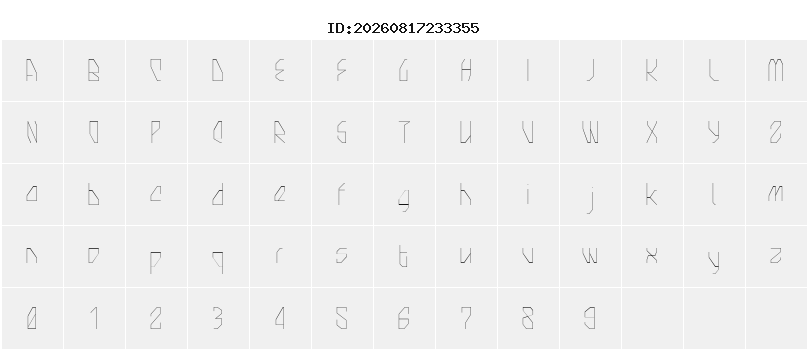
• Font Name: Snowstreet Thin Personal Use
• Full Font Name: Snowstreet Thin Personal Use
• Designer: Måns Grebäck
• Manufacturer: Måns Grebäck
About Snowstreet Thin Personal Use.ttf
Snowstreet Thin Personal Use.ttf is a modern, elegant sans-serif font designed for ultimate readability and visual harmony. Perfect for branding, headlines, web design, and print materials.